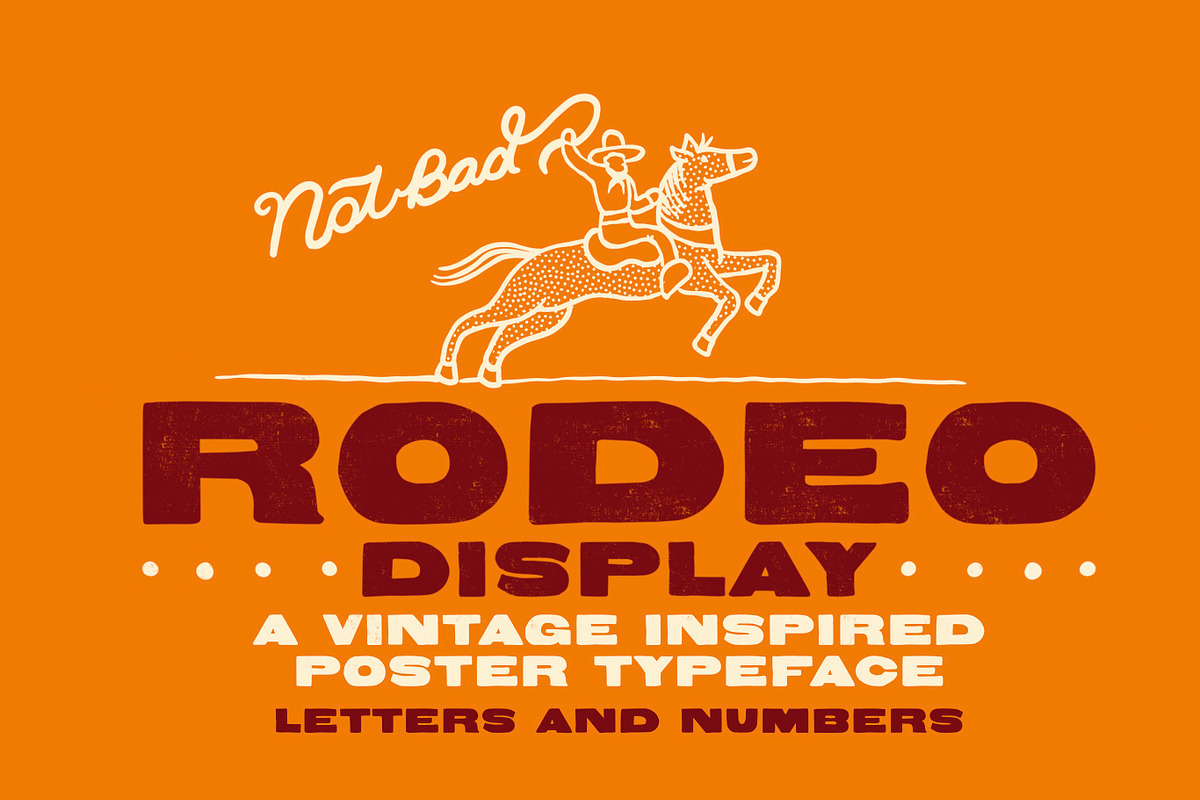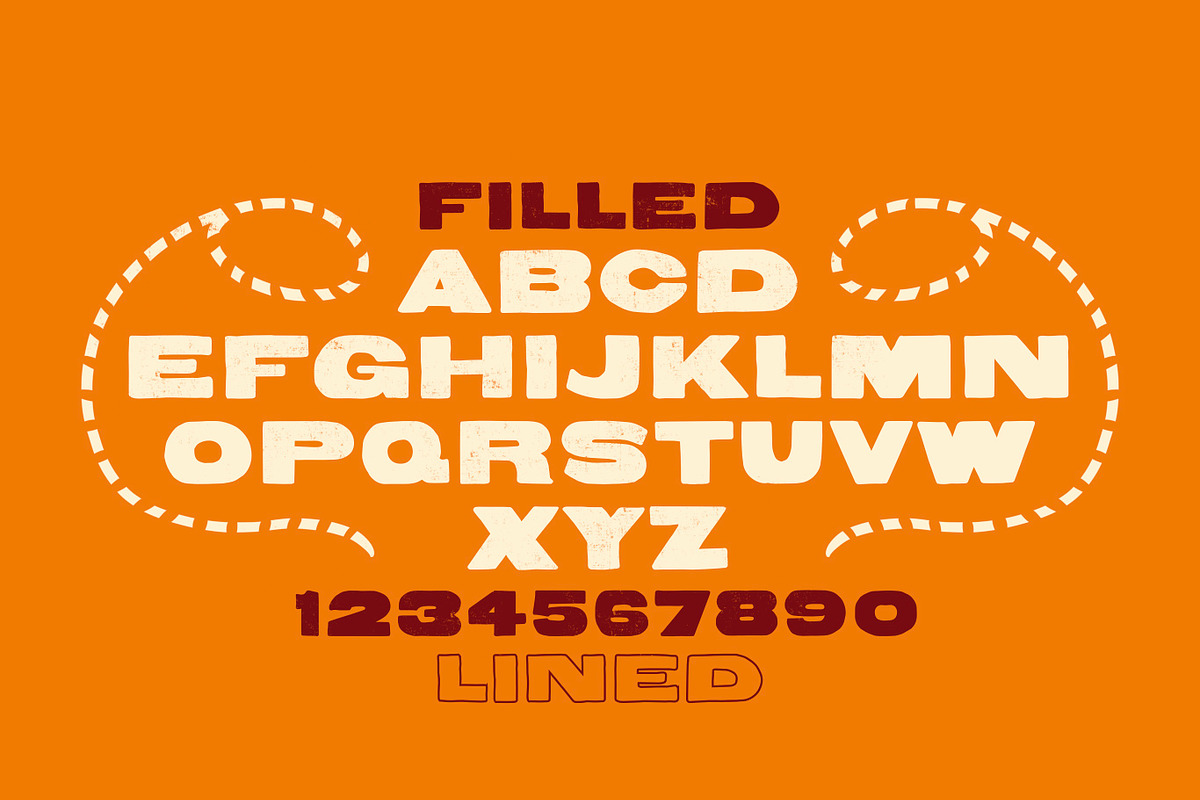
RODEO DISPLAY
Classic handwritten poster font. Comes with glyphs and numbers. Both lined and flled. Inspired by the old west, letterpress, the rodeo, the saloon and the good old, fashioned poster, the font is a good all-utility workhorse.